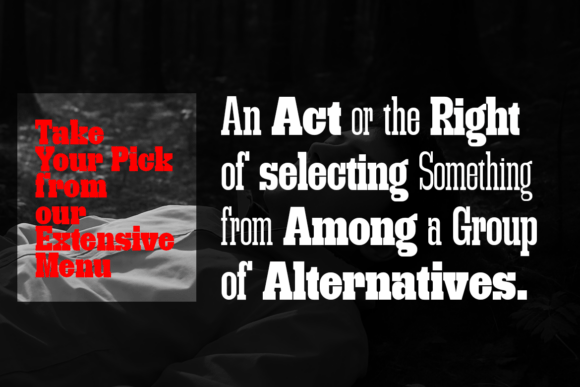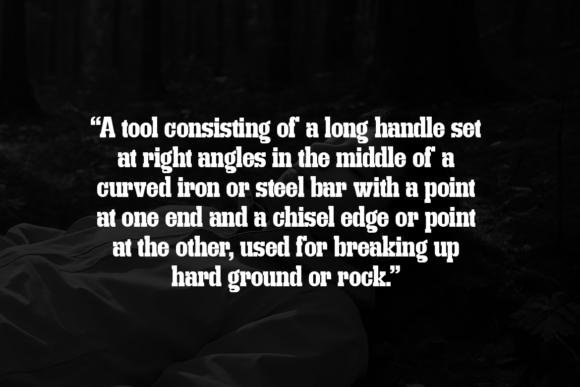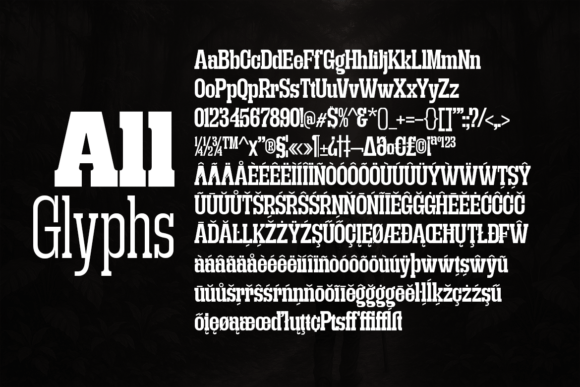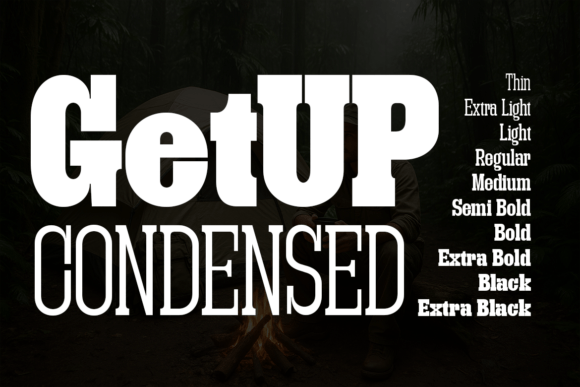
Discover the Power of Getup Condensed Font: Elevate Your Design with a Dynamic Slab Serif
In the world of typography, the right font can make all the difference in elevating your design from ordinary to extraordinary. For designers and crafters looking for a sophisticated, space-saving aesthetic that remains effortlessly readable at various sizes, the Getup Condensed Font is an excellent choice. In this article, we’ll explore the features and benefits of GetUp – Condensed, a dynamic and contemporary slab serif font that is sure to take your designs to the next level.
Introducing GetUp – Condensed: A Modern Slab Serif Font
GetUp – Condensed is a versatile font that offers a significantly narrower profile than the Regular edition, making it perfect for secondary headlines, magazine sub-headers, and technical branding. With 10 weights ranging from Thin to Extra Black, this font family provides a wide range of options for designers to create a dynamic typographic hierarchy. The Get Up Condensed typeface features clean outlines, slimmer proportions, and more generous internal curves than its Ultra-Condensed counterpart, making it an ideal choice for a variety of design applications.
Key Features of GetUp Condensed Font
- Dynamic and Contemporary Design: GetUp – Condensed boasts a modern slab serif look that adds a touch of sophistication to any design.
- Slimmer Proportions: With a narrower profile than the Regular edition, this font is perfect for designs where space is limited.
- Clean Outlines: The clean outlines of GetUp – Condensed ensure that your design looks crisp and professional.
- 10 Weights: From Thin to Extra Black, this font family offers a range of options to suit your design needs.
- Effortlessly Readable: Despite its condensed design, GetUp – Condensed remains easily readable at various sizes, making it perfect for body text and headlines.
Use Cases for GetUp Condensed Font
GetUp – Condensed is a versatile font that can be used in a variety of design applications, including:
- Secondary Headlines: Add a touch of sophistication to your headlines with GetUp – Condensed.
- Magazine Sub-Headers: Use GetUp – Condensed to create eye-catching sub-headers that complement your main headlines.
- Technical Branding: GetUp – Condensed is perfect for technical branding where a sophisticated, space-saving aesthetic is required.
- Product Specification Lists: Use GetUp – Condensed to create clear and concise product specification lists.
- Editorial Sidebars: Add a touch of elegance to your editorial sidebars with GetUp – Condensed.
- High-End Retail Signage: GetUp – Condensed is perfect for high-end retail signage where a sophisticated and professional look is required.
Pairing GetUp Condensed with Other Fonts
To create a dynamic typographic hierarchy, pair GetUp – Condensed with the expanded versions of the GetUp font family. This will create a cohesive and professionally curated look that elevates your design. The contrast between the condensed and expanded fonts will add visual interest to your design, making it more engaging and effective.
In conclusion, GetUp – Condensed is a powerful font that offers a unique combination of style, versatility, and readability. With its dynamic and contemporary design, slimmer proportions, and clean outlines, this font is perfect for designers and crafters looking to elevate their designs. Whether you’re working on a magazine, website, or product packaging, GetUp – Condensed is an excellent choice. So why wait? Discover the power of Getup Condensed Font and take your designs to the next level.